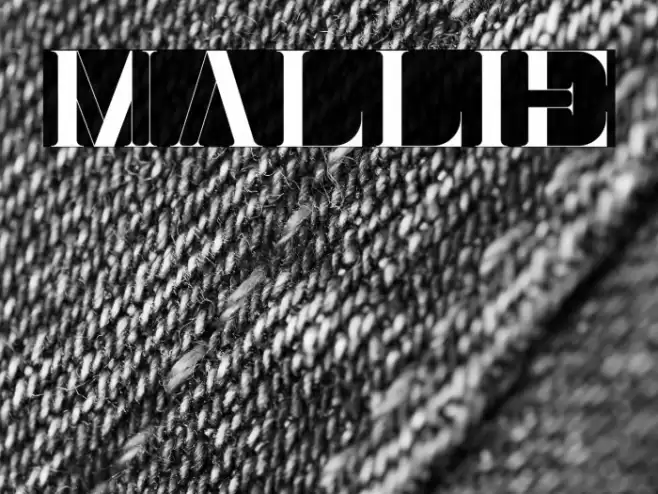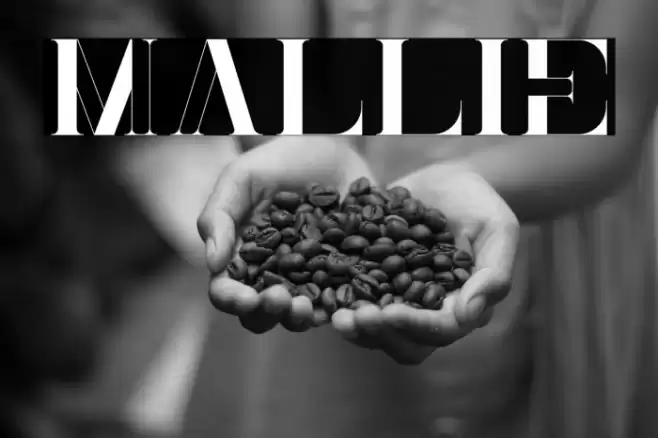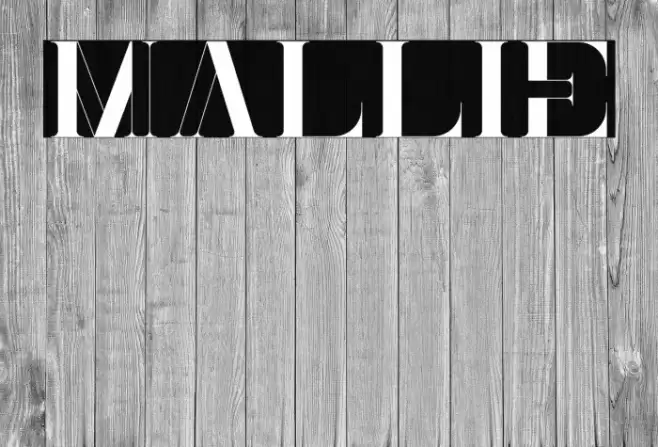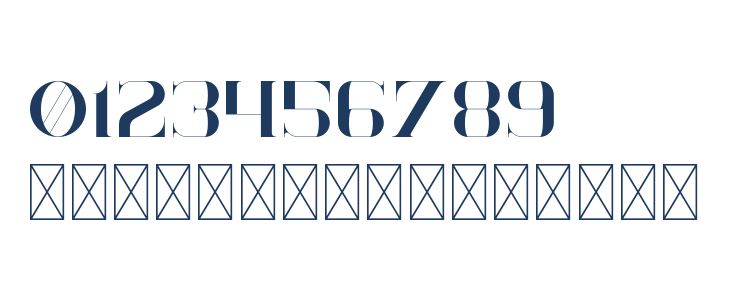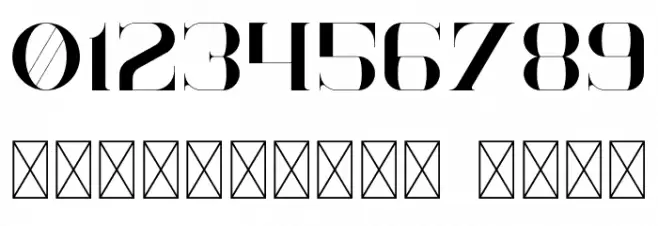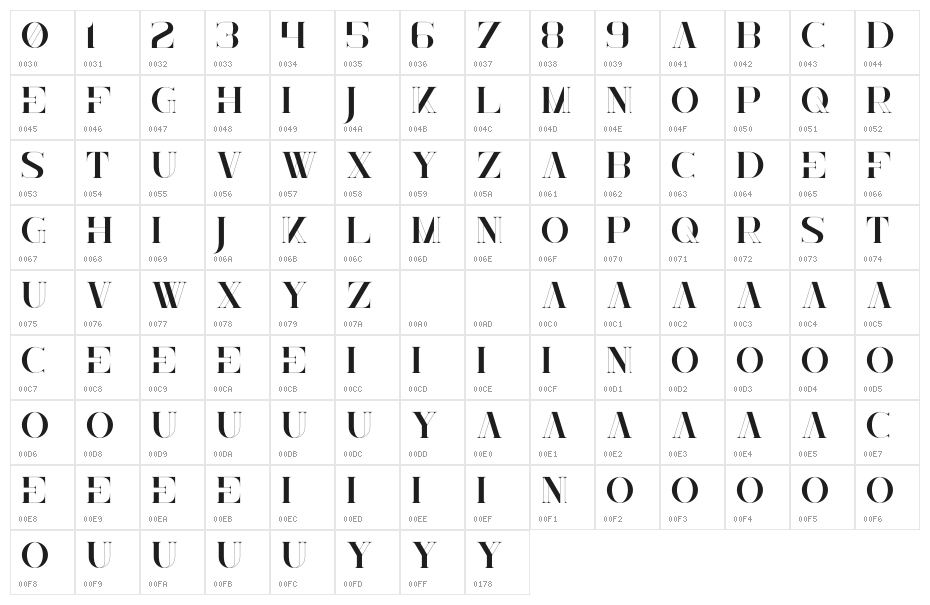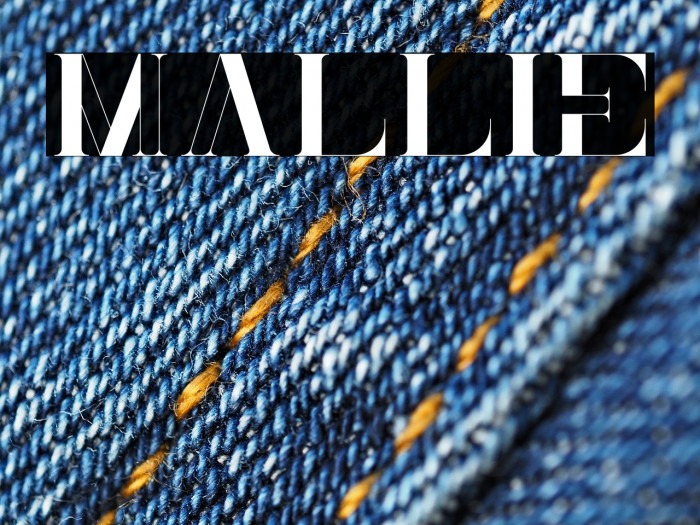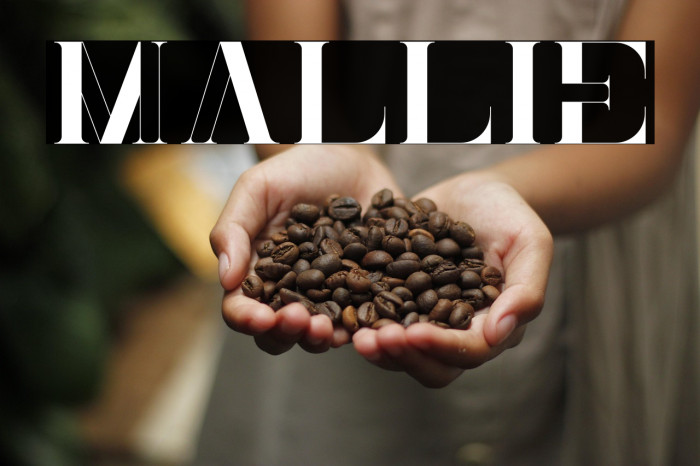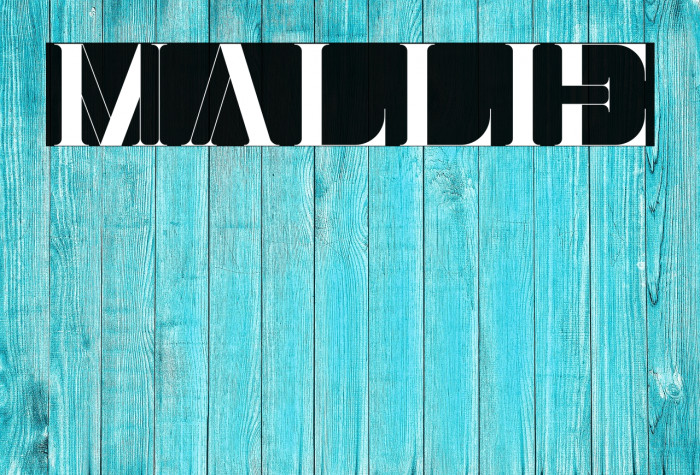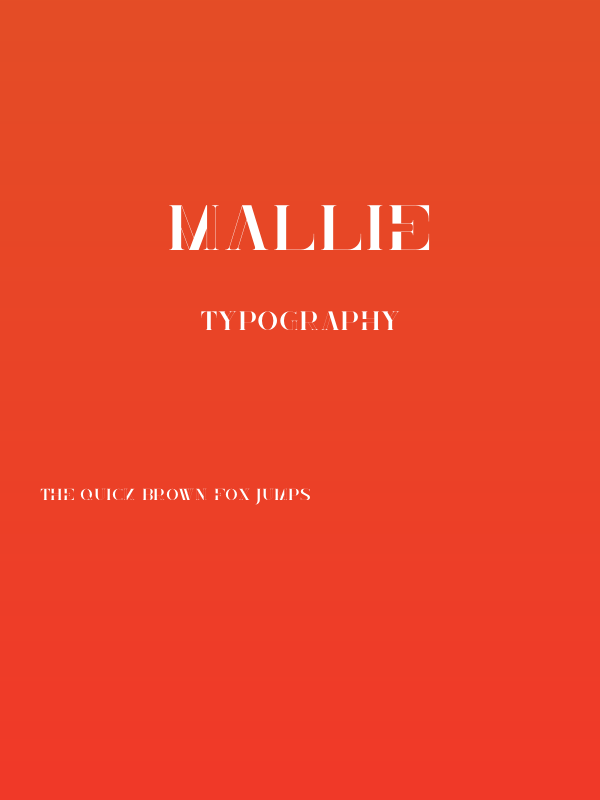
Mallie Font
Mallie Description
This font features a unique blend of modern and classic elements, characterized by its high contrast between thick and thin strokes. The uppercase letters exhibit a bold and striking appearance, with sharp angles and clean lines that create a sense of elegance and sophistication. The numerals are equally distinctive, maintaining the high contrast and geometric precision seen in the alphabet. The overall design is both artistic and functional, making it suitable for a variety of creative applications.
A high-contrast, modern font with sharp angles and bold strokes from Regular fonts.
- Proposed Projects: Ideal for luxury branding, editorial headlines, fashion magazines, and artistic posters.